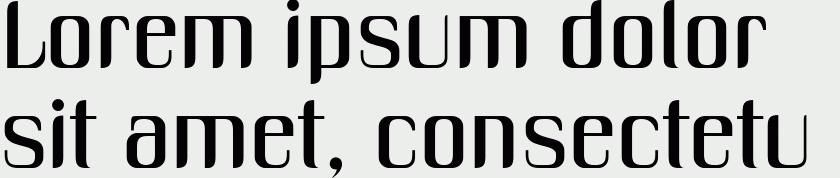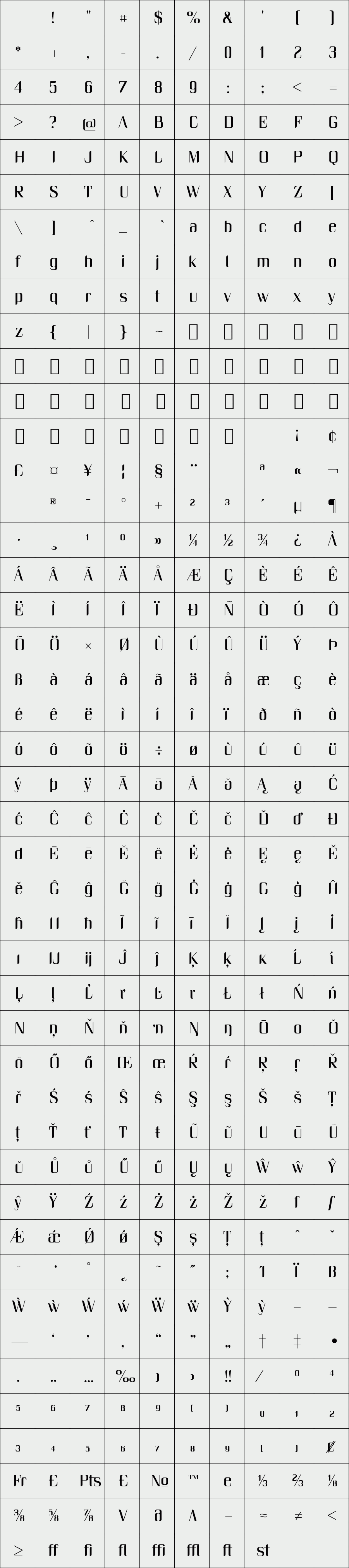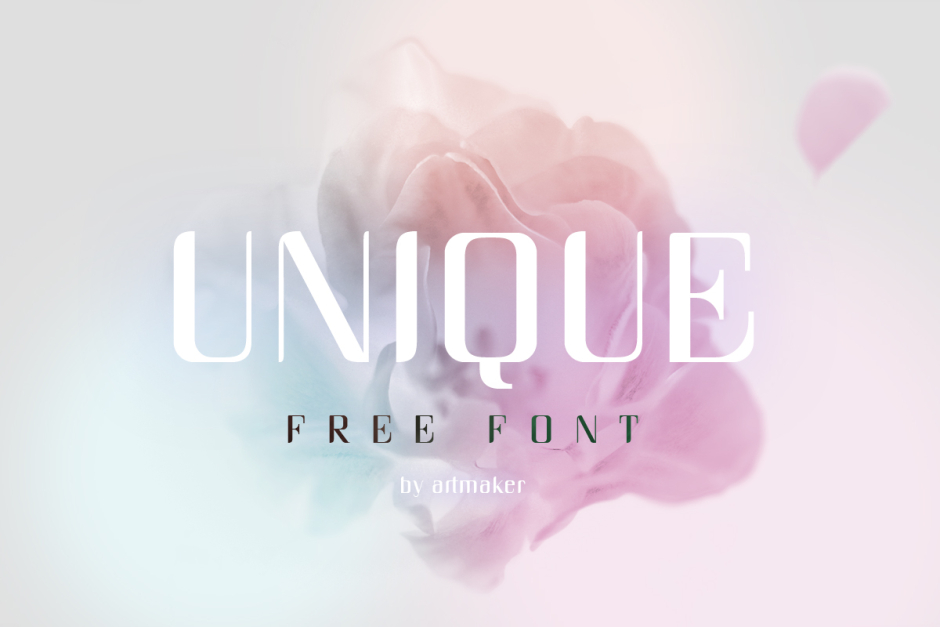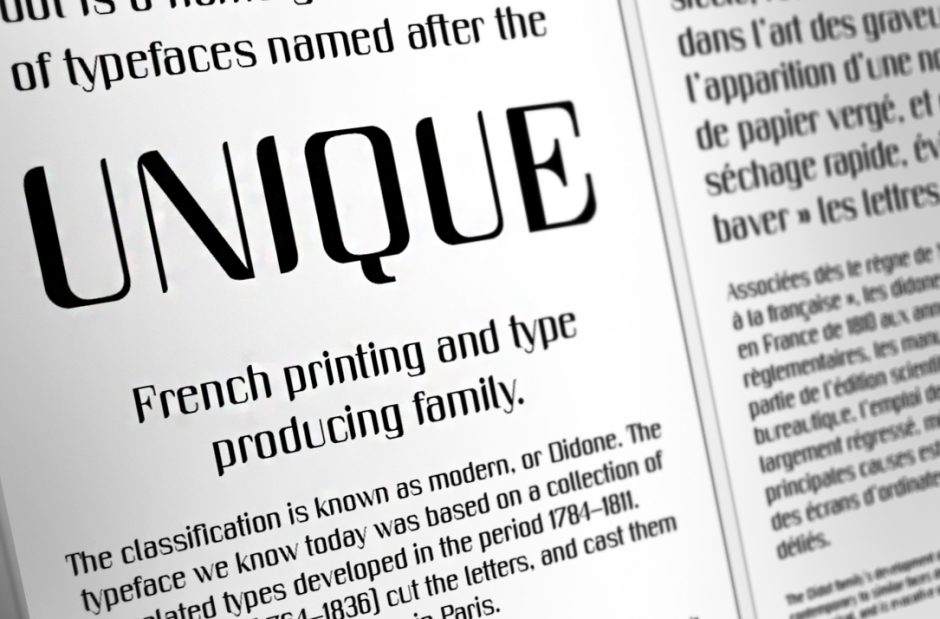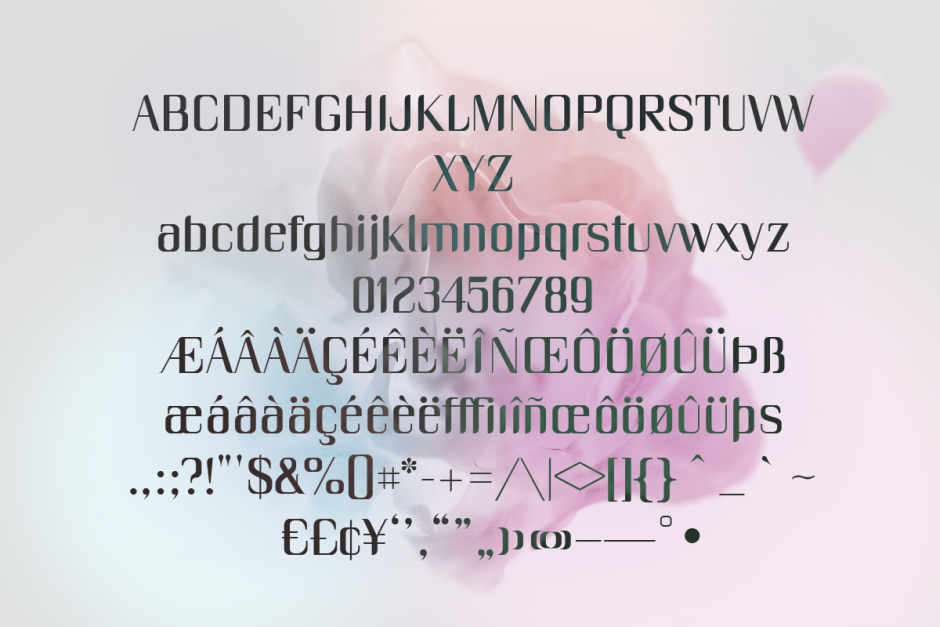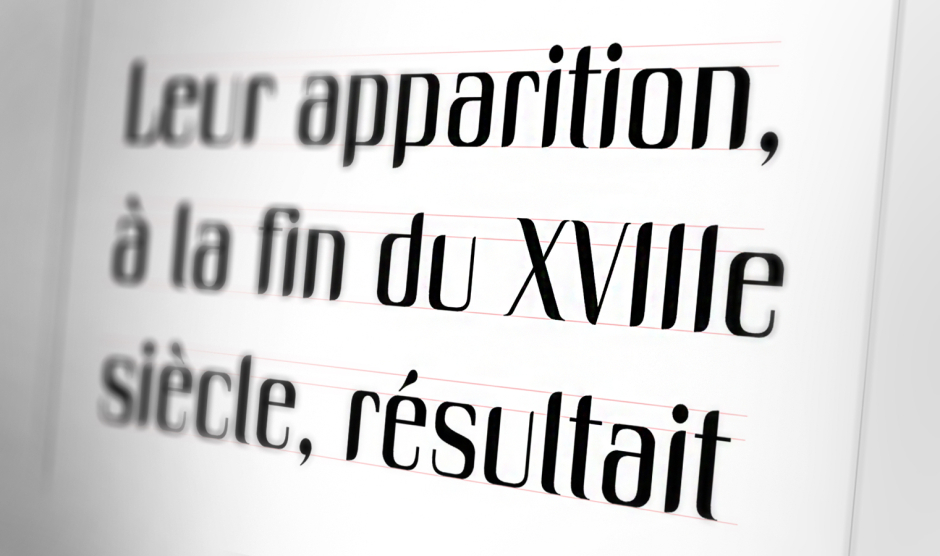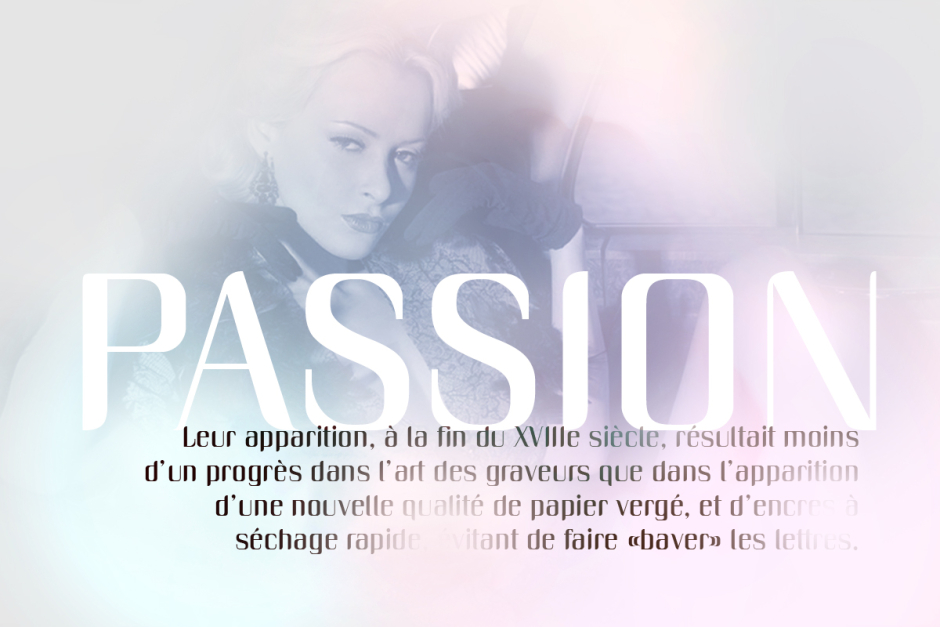
UNIQUE
/ Unique
Display hybrid typeface. A little bit fashy, retro, but still contemporary font
designed especially for your greatest headings & logotypes.
Full Language Support
Afrikaans, Basic Latin, Catalan, Central European, Dutch, Euro, Latin Ligatures, Romanian, Turkish, Western European, Baltics.
Designer: Anna Pocius